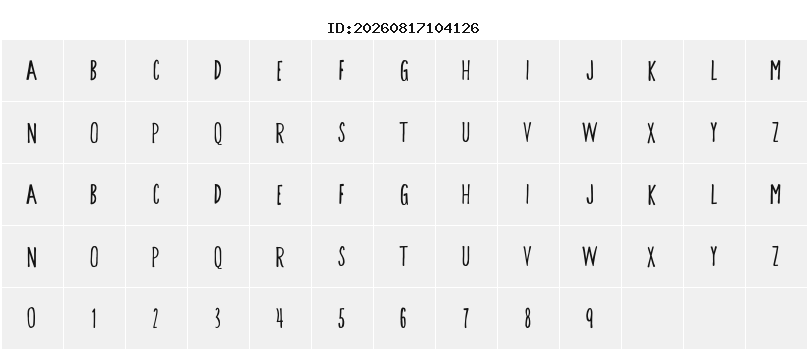
Songbird Preview
• Font Name: Songbird
• Full Font Name: Songbird-Regular
About Songbird.otf
Songbird.otf is a modern, elegant sans-serif font designed for ultimate readability and visual harmony. Perfect for branding, headlines, web design, and print materials.